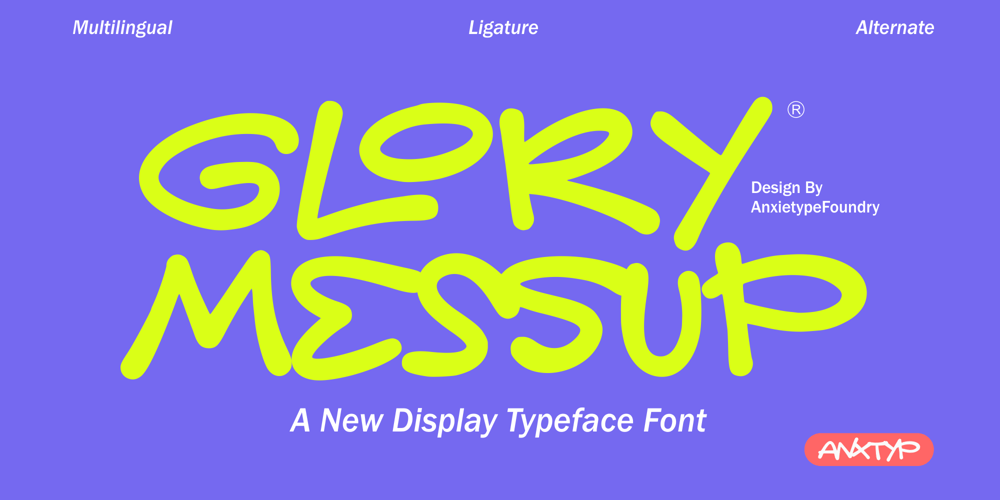
Glory Messup Font Family was designed by Annas Rifky Anhar and published by Anxietype Foundry. Glory Messup contains 1 styles and family package options. Introducing Glory Messup: An exquisite display font meticulously crafted by Anxietype Foundry. Exuding sophistication and a modern edge, this font perfectly embodies the union of style and functionality. Glory Messup effortlessly enhances branding aesthetics, adds an opulent touch to websites, gives streetwear a unique twist, and seamlessly fits into fashion projects or app interfaces. Experience the transformative power of typeface with Glory Messup.